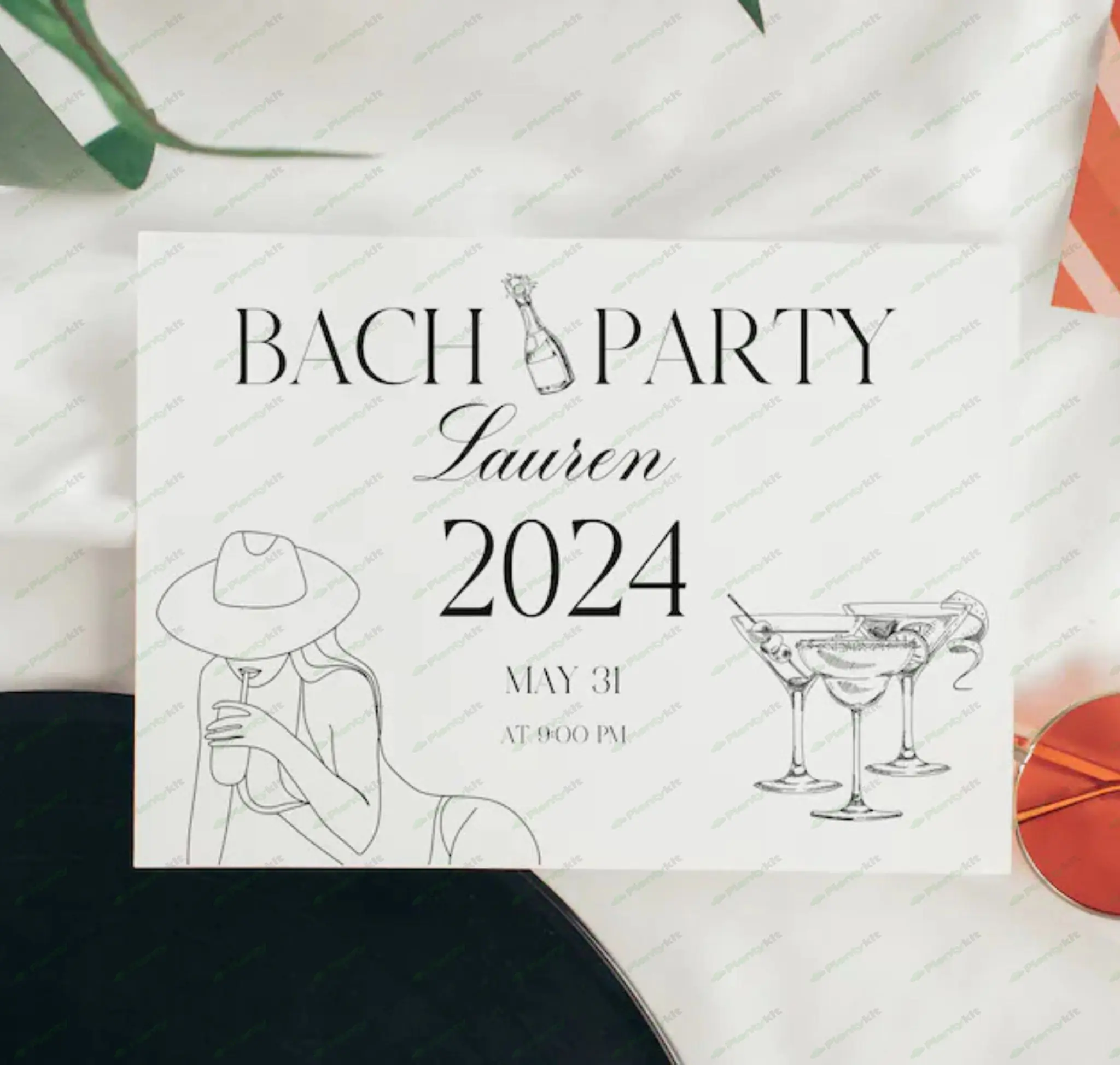
Wedding Font Bundle | Perfect for Invitations, Signs, & Stationery Design
Elevate your wedding designs with our exclusive Wedding Font Bundle! This curated collection includes a variety of elegant, calligraphy-style fonts tailored for weddings and special events. Ideal for brides, grooms, wedding planners, and graphic designers, these fonts are perfect for creating cohesive, beautiful invitations, save-the-dates, menus, seating charts, and more. Whether you’re planning a rustic celebration, a glamorous black-tie affair, or a whimsical garden wedding, this bundle has a font to match every style.